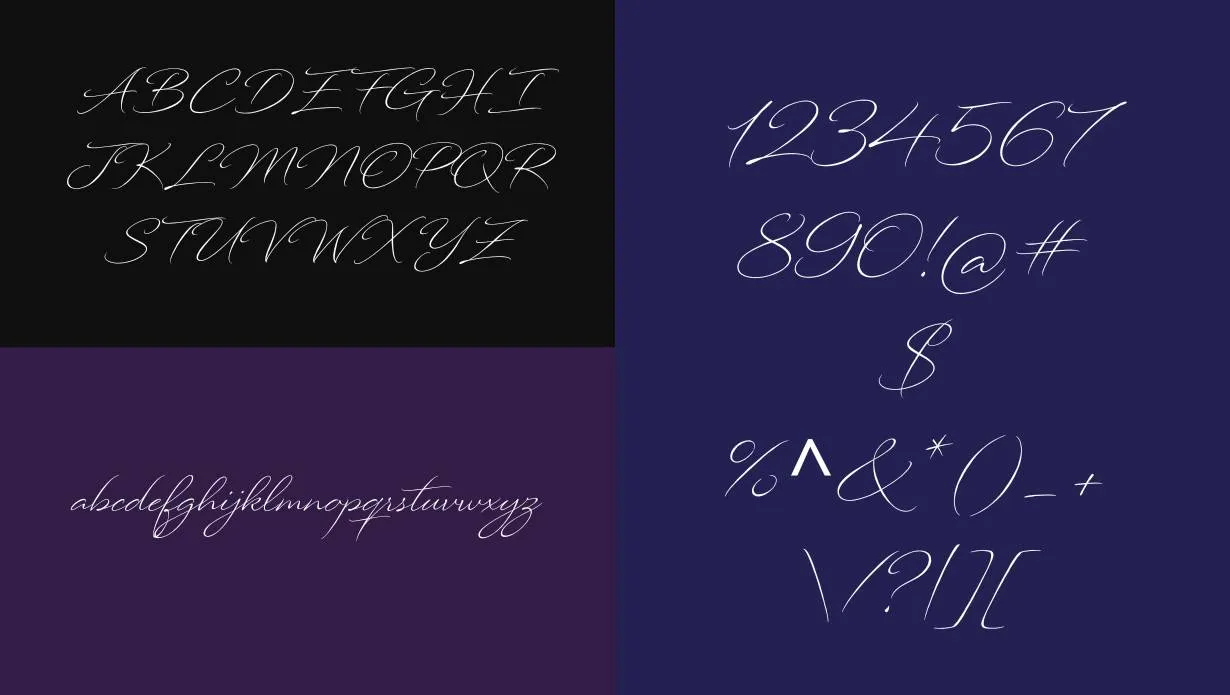
North Wave Font draws inspiration from the typography utilized in extreme sports and adventure branding.
It’s a favorite choice for projects related to surfing, snowboarding, and outdoor activities, adding an element of action and adrenaline to your design work.
| Name | North Wave Font |
| Designer | Youssef Habchi |
North Wave Font Family